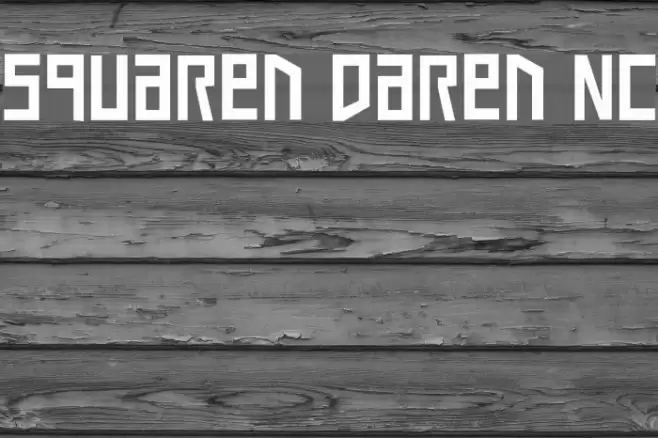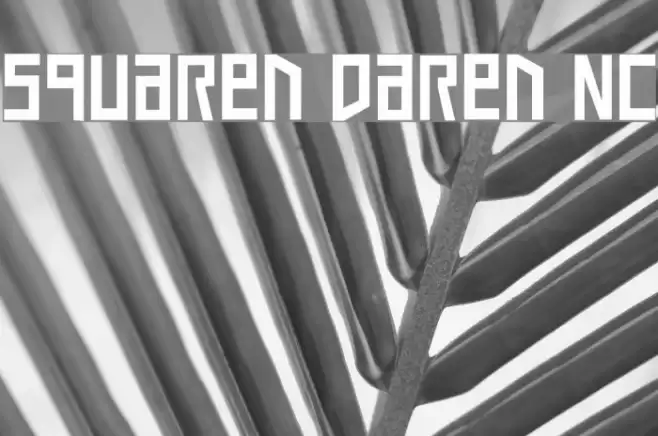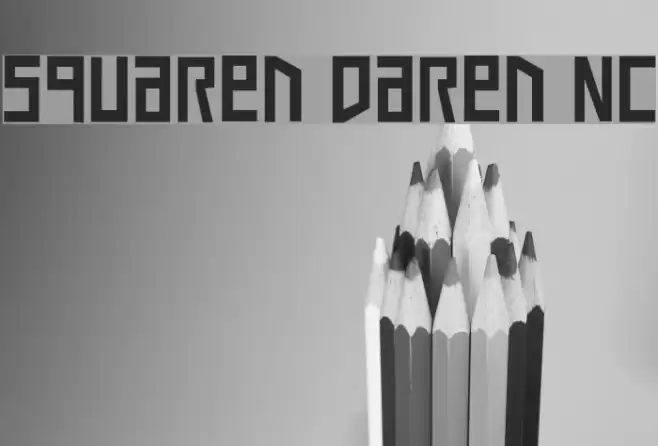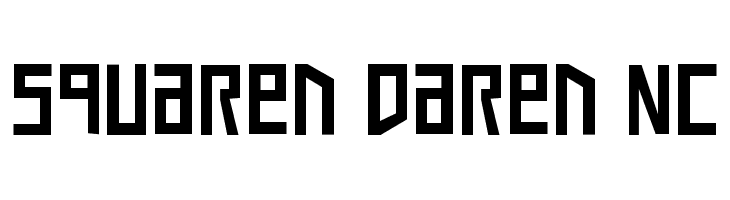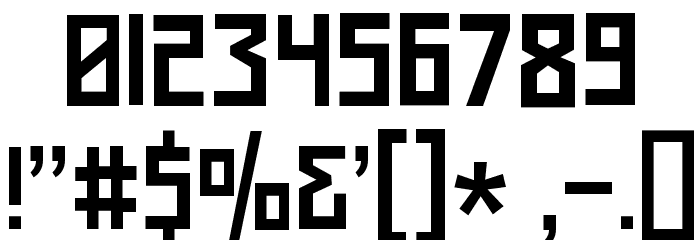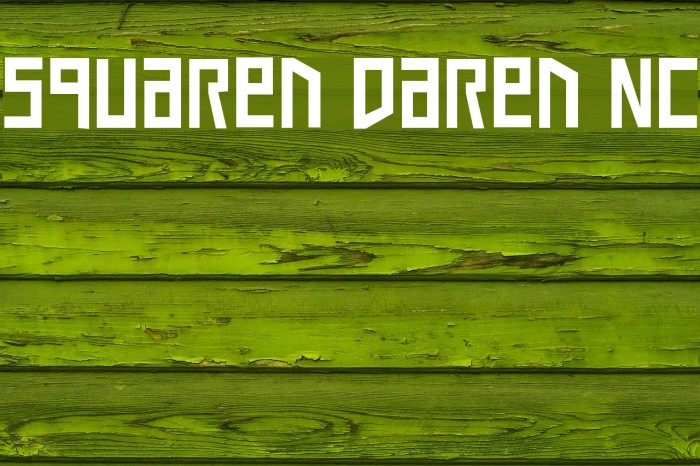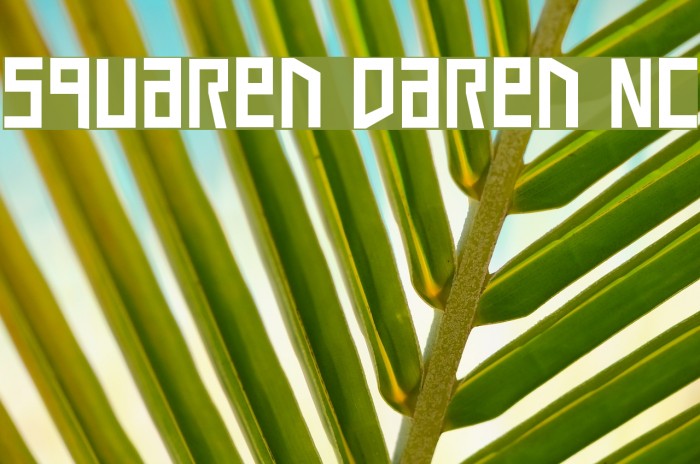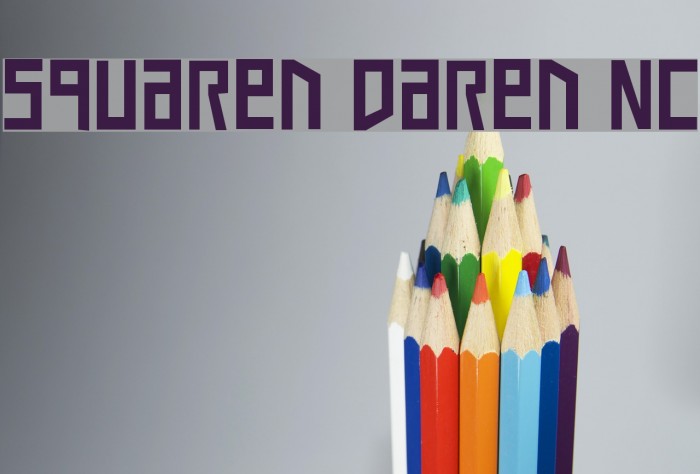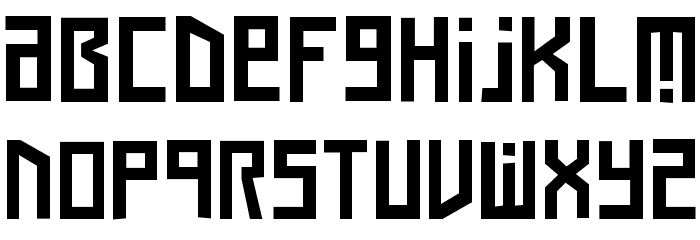
Squaren Daren NC Font
Squaren Daren NC Description
This font features a bold, geometric design with a distinctly modern and futuristic aesthetic. The characters are constructed with sharp angles and straight lines, creating a blocky and robust appearance. The uppercase and lowercase letters maintain a consistent height, contributing to a uniform look. The numerals and special characters follow the same angular style, ensuring cohesion across all elements. This font is highly legible and impactful, making it suitable for attention-grabbing designs. Its unique style is reminiscent of digital or sci-fi themes, offering a contemporary edge.
A bold, geometric font with a modern, futuristic style from Uncategorized fonts.
- Proposed Projects: Ideal for digital interfaces, sci-fi themed projects, video game graphics, and modern branding.